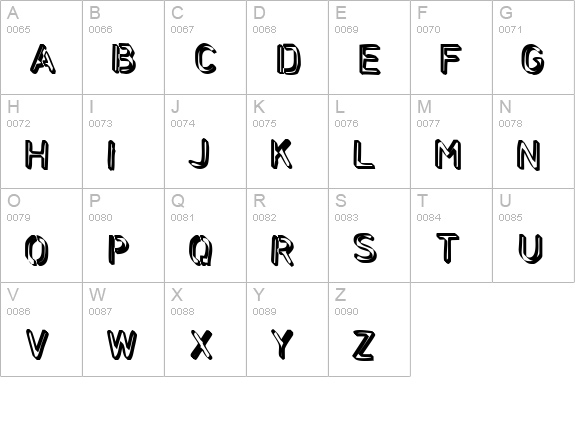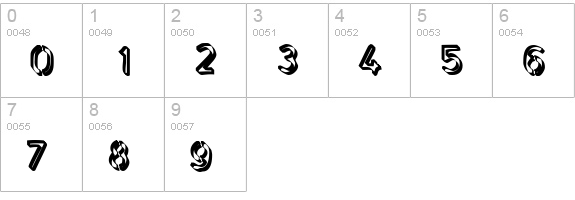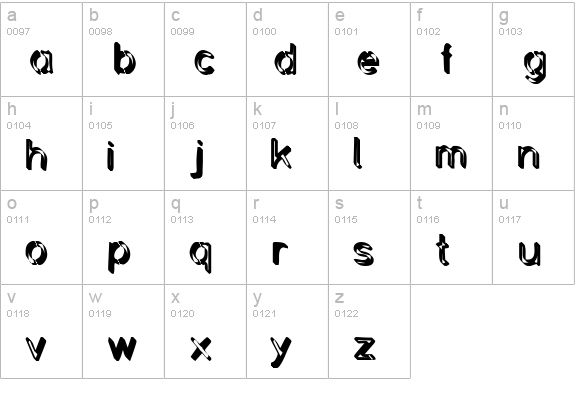
Backcab Extra Crispy Font Details
Introducing Backcab Extra Crispy font, a delightful and playful typeface that will add a touch of whimsy to your designs. This unique font features crisp lines and a modern aesthetic, making it perfect for a wide range of projects. With its quirky charm and eye-catching appeal, Backcab Extra Crispy font is sure to stand out and make a statement. Whether you're working on branding, packaging, invitations, or any other creative project, this font will bring a fresh and dynamic look to your work. Best of all, Backcab Extra Crispy font is available for free download at FontsMarket.com. So go ahead and give your designs that extra crunch with this fantastic font today!